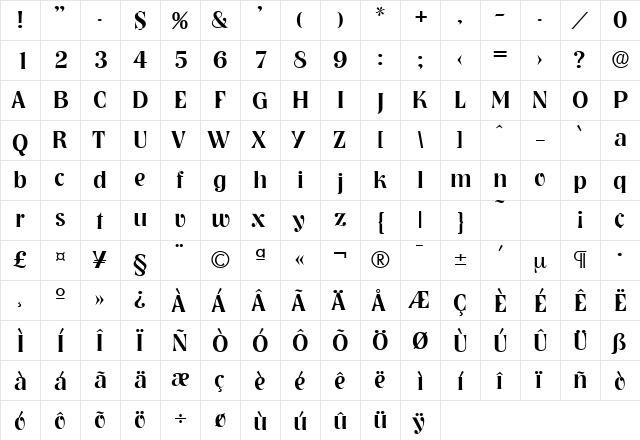
Nashville-Serial-Medium Regular Font Preview
Nashville-Serial-Medium Regular
Nashville-Serial-Medium Regular Font Details
Design Context for Nashville-Serial-Medium Typeface
Nashville-Serial-Medium takes a measured approach to typography — its balanced proportions and neutral character make it a reliable workhorse for both digital and print work.